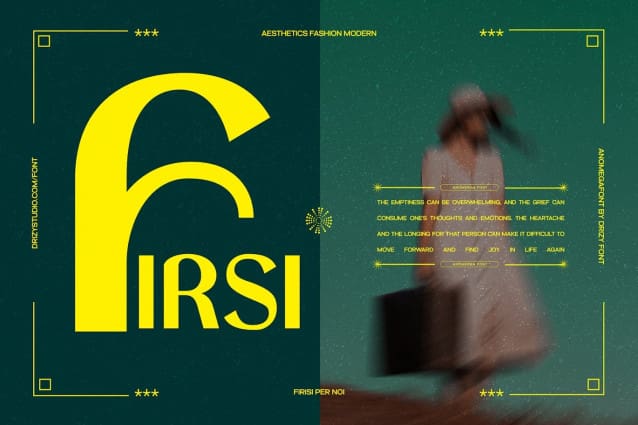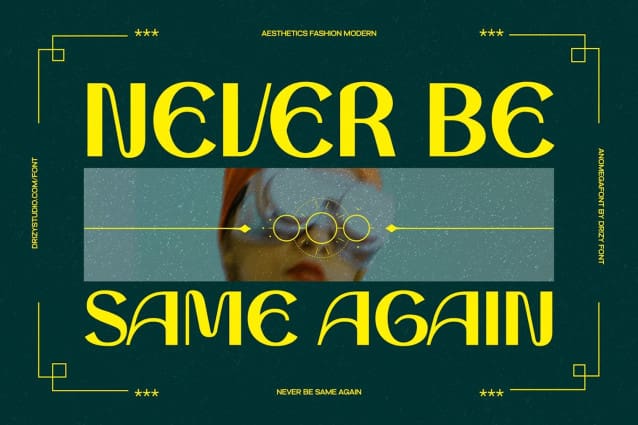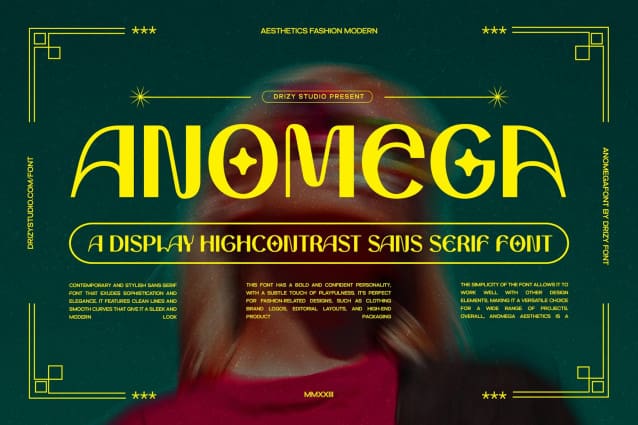
Anomega Font
Anomega Font – A high contrast sans serif display font from Drizy Studio. Take your designs to a new level with Anomega, the high-contrast sans serif font that grabs attention and delivers impact!
Anomega Features: Alternatives Numbers and Punctuations Multilingual Support